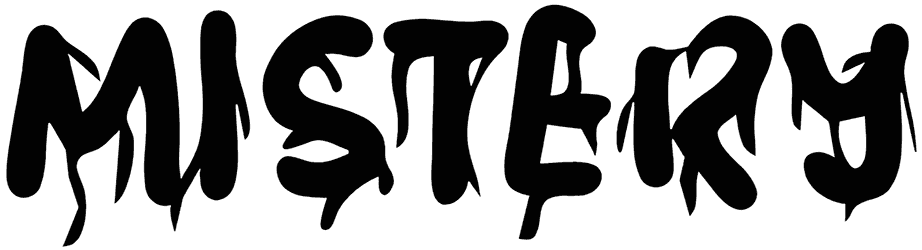
Scary Halloween Font
Want a unique Halloween font? Especially one that has a horror style to its design? Give Scary Halloween a shot to produce one interesting typography similar to the exact one that is displayed! It’s a spooky dripping font, plus it offers thick characters that are melting like the wax of a candle.
The letterforms provided don’t include lower case alphabets nor any punctuations. You can involve Scary Halloween in books, Halloween cartoons, posters, costumes, and scary movies and it will look grungy!
Designed by: Phelan Riessen